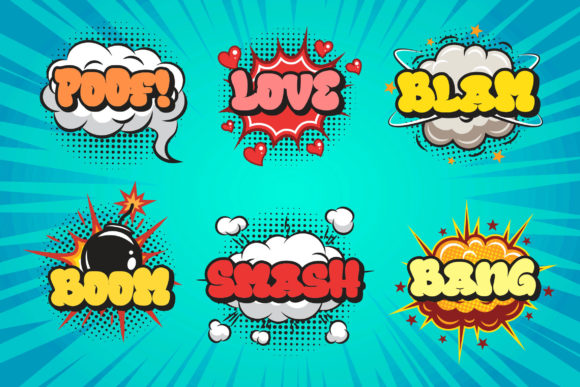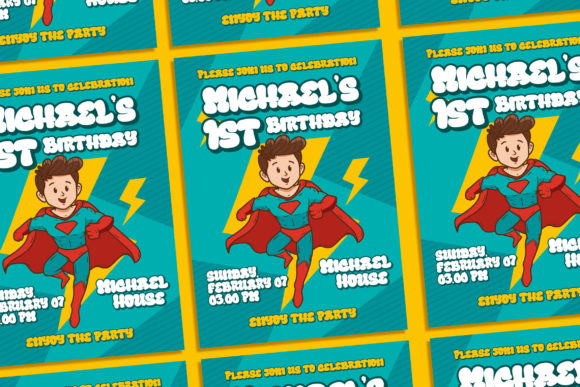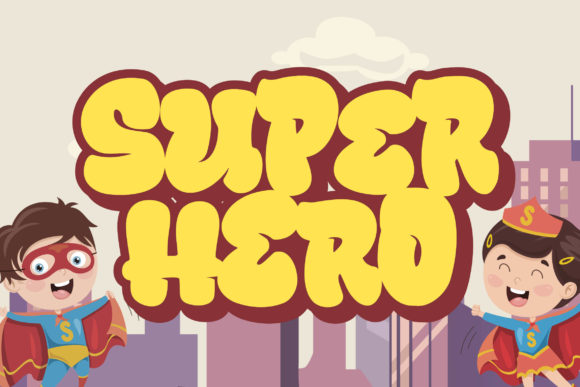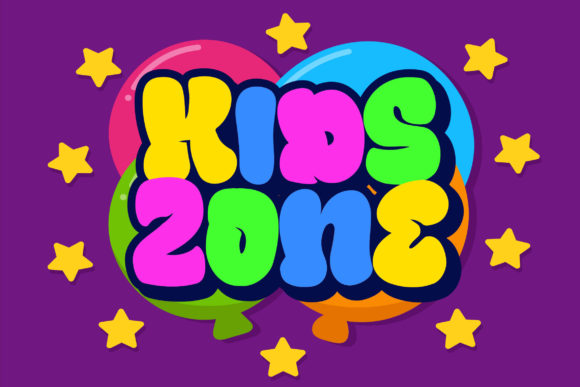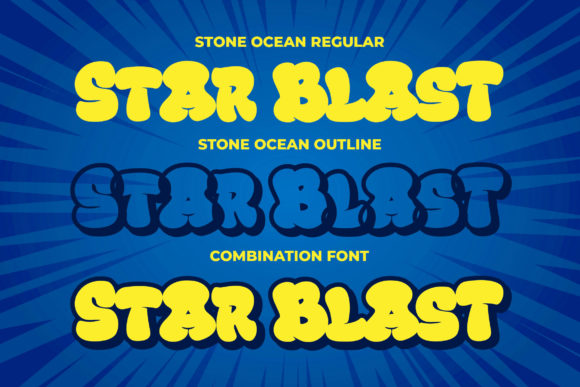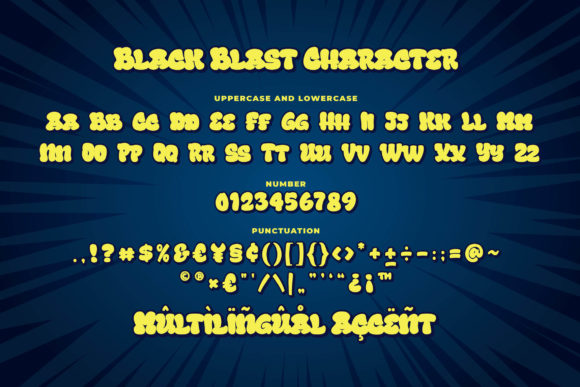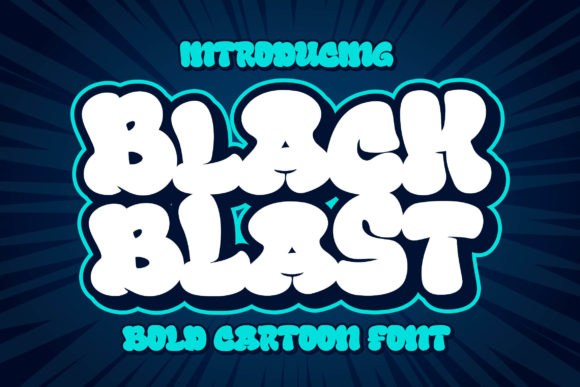
Unleash Creativity with Black Blast Font: The Ultimate Display Font for Kids’ Projects
Are you a designer, crafter, or educator looking for a font that embodies playfulness and authenticity? Look no further than the Black Blast Font! This bold and thick lettered display font is perfect for any children’s activity or school project that requires a fun and eye-catching touch. In this article, we’ll dive into the world of Black Blast Font, exploring its features, benefits, and uses, as well as provide tips on how to make the most of this fantastic font.
What is Black Blast Font?
Black Blast Font is a display font designed to make a statement. Its bold and thick lettering makes it perfect for headlines, titles, and any other text that needs to grab attention. The font’s playful and authentic vibe makes it an excellent choice for projects aimed at kids, such as activity sheets, posters, and educational materials.
Key Features of Black Blast Font
- Bold and Thick Lettering: Black Blast Font features bold and thick letters that make it perfect for display purposes.
- Playful and Authentic: The font’s playful and authentic vibe makes it an excellent choice for kids’ projects.
- Easy to Read: Despite its boldness, Black Blast Font is easy to read, making it perfect for titles, headings, and short paragraphs.
- Versatile: Black Blast Font can be used for a wide range of projects, from posters and flyers to activity sheets and educational materials.
Benefits of Using Black Blast Font
So, why should you choose Black Blast Font for your next project? Here are just a few benefits of using this fantastic font:
- Adds Visual Appeal: Black Blast Font adds a touch of visual appeal to any project, making it perfect for kids’ activities and school projects.
- Enhances Creativity: The font’s playful and authentic vibe can help stimulate creativity and imagination in kids.
- Time-Saving: With Black Blast Font, you can create professional-looking projects in no time, saving you time and effort.
Uses of Black Blast Font
Black Blast Font is a versatile font that can be used for a wide range of projects, including:
- Kids’ Activity Sheets: Use Black Blast Font to create fun and engaging activity sheets for kids.
- School Projects: Add a touch of professionalism to school projects with Black Blast Font.
- Posters and Flyers: Use Black Blast Font to create eye-catching posters and flyers for kids’ events.
- Educational Materials: Black Blast Font is perfect for educational materials, such as textbooks, workbooks, and worksheets.
Tips for Using Black Blast Font
Here are a few tips for using Black Blast Font:
- Use it Sparingly: Use Black Blast Font sparingly to avoid overwhelming your project.
- Pair it with Other Fonts: Pair Black Blast Font with other fonts to create a unique and visually appealing design.
- Experiment with Colors: Experiment with different colors to find the perfect combination for your project.
- Have Fun: Most importantly, have fun with Black Blast Font! It’s a versatile font that can add a touch of playfulness and authenticity to any project.
In conclusion, Black Blast Font is a fantastic display font that embodies playfulness and authenticity. Its bold and thick lettering makes it perfect for kids’ activities and school projects. With its ease of use, versatility, and visual appeal, Black Blast Font is a must-have for designers, crafters, and educators. So why wait? Download Black Blast Font today and unleash your creativity!